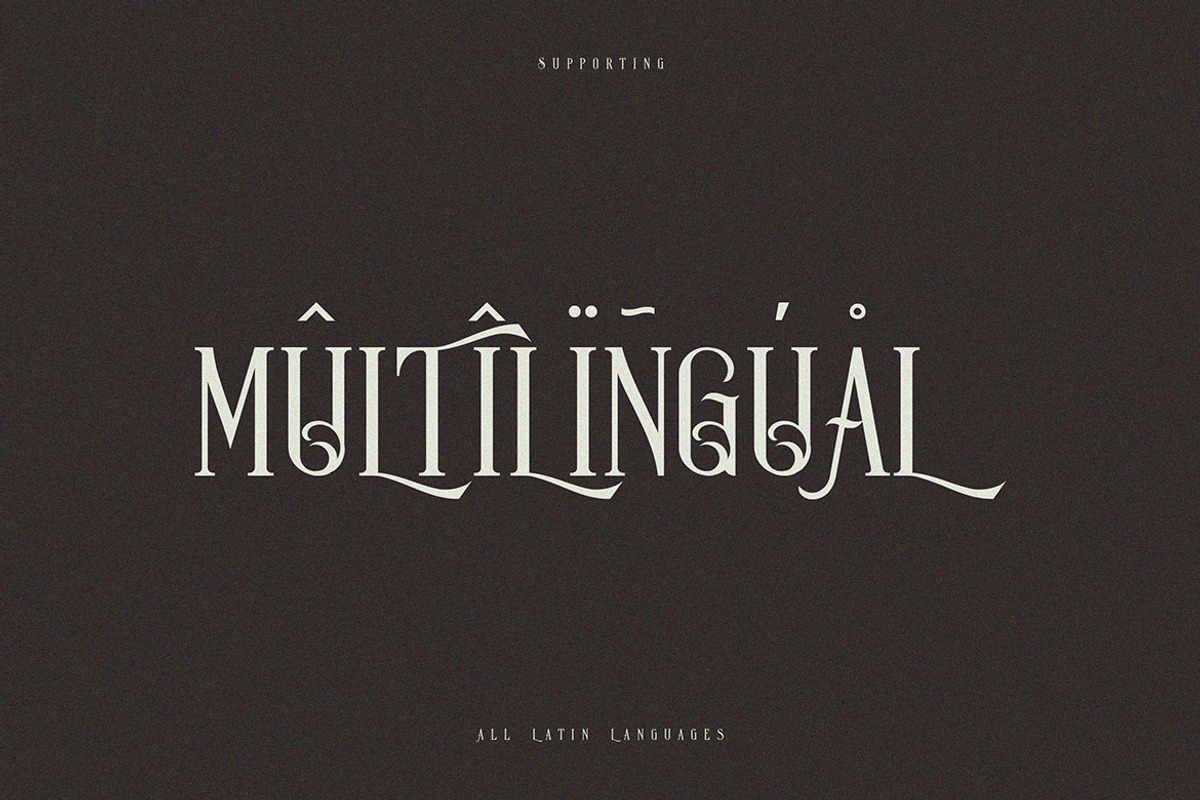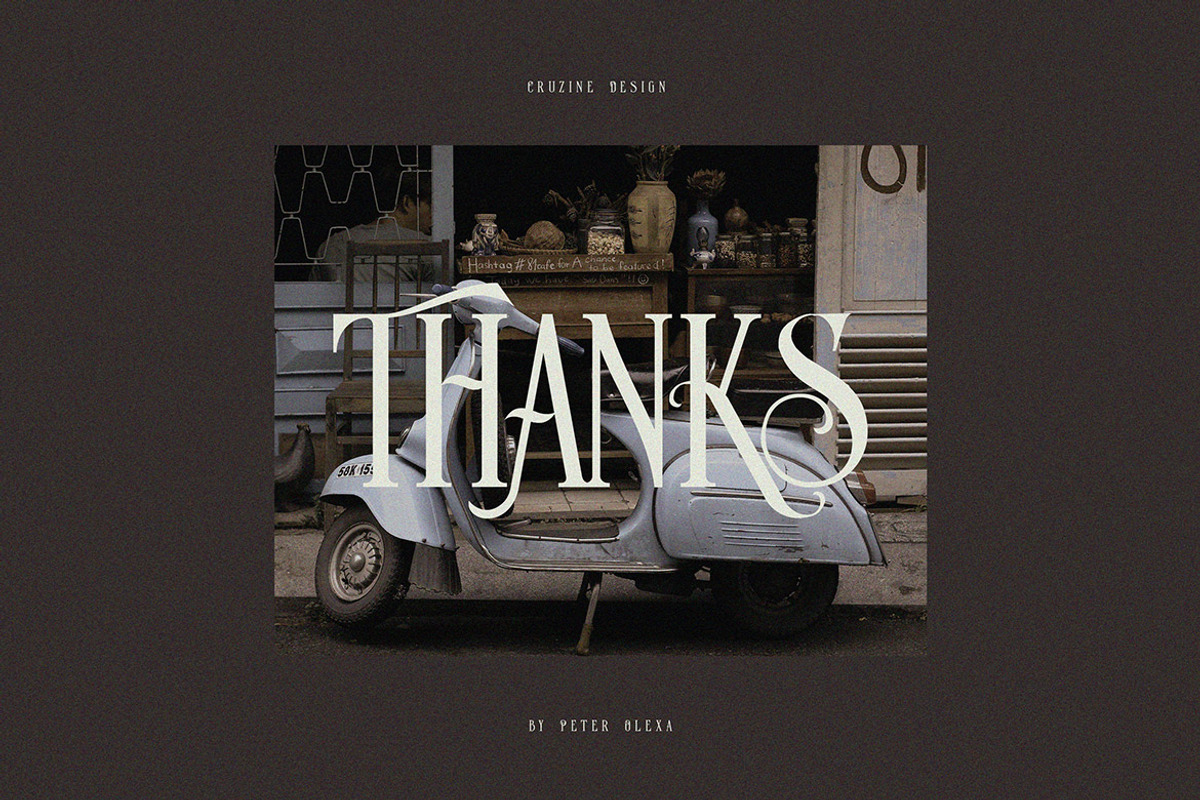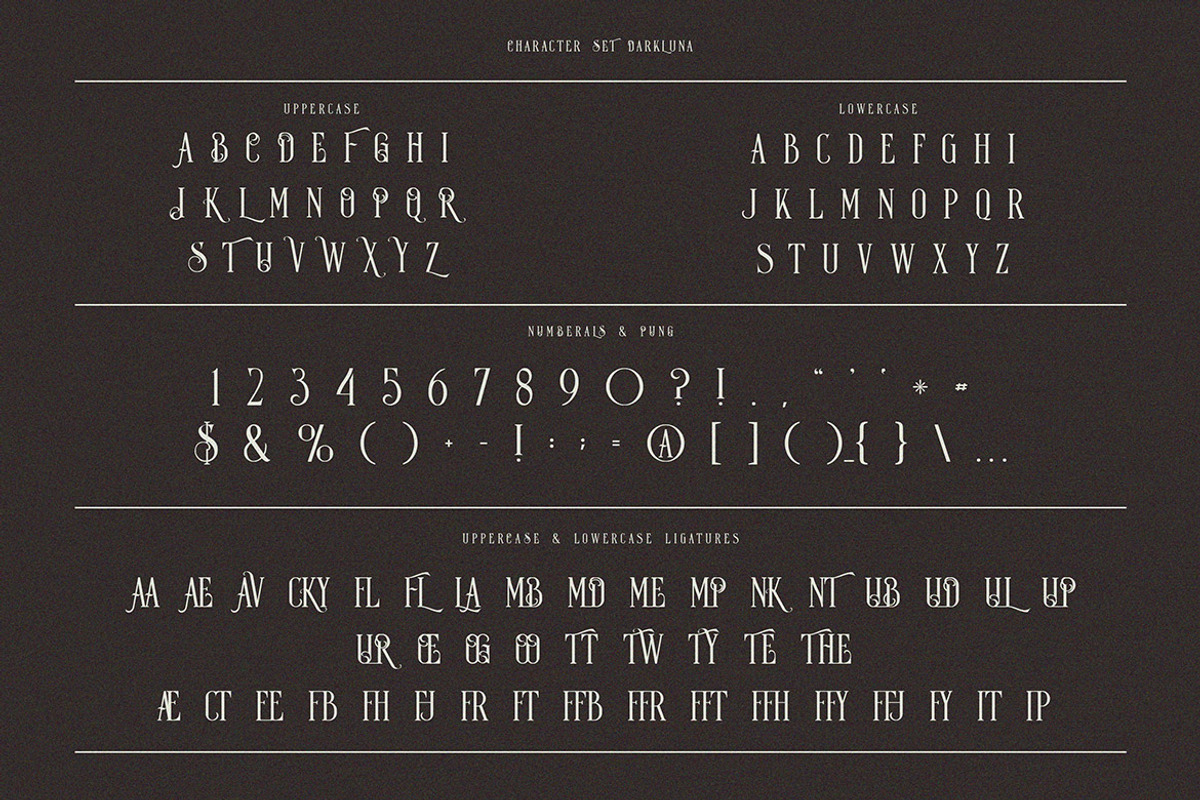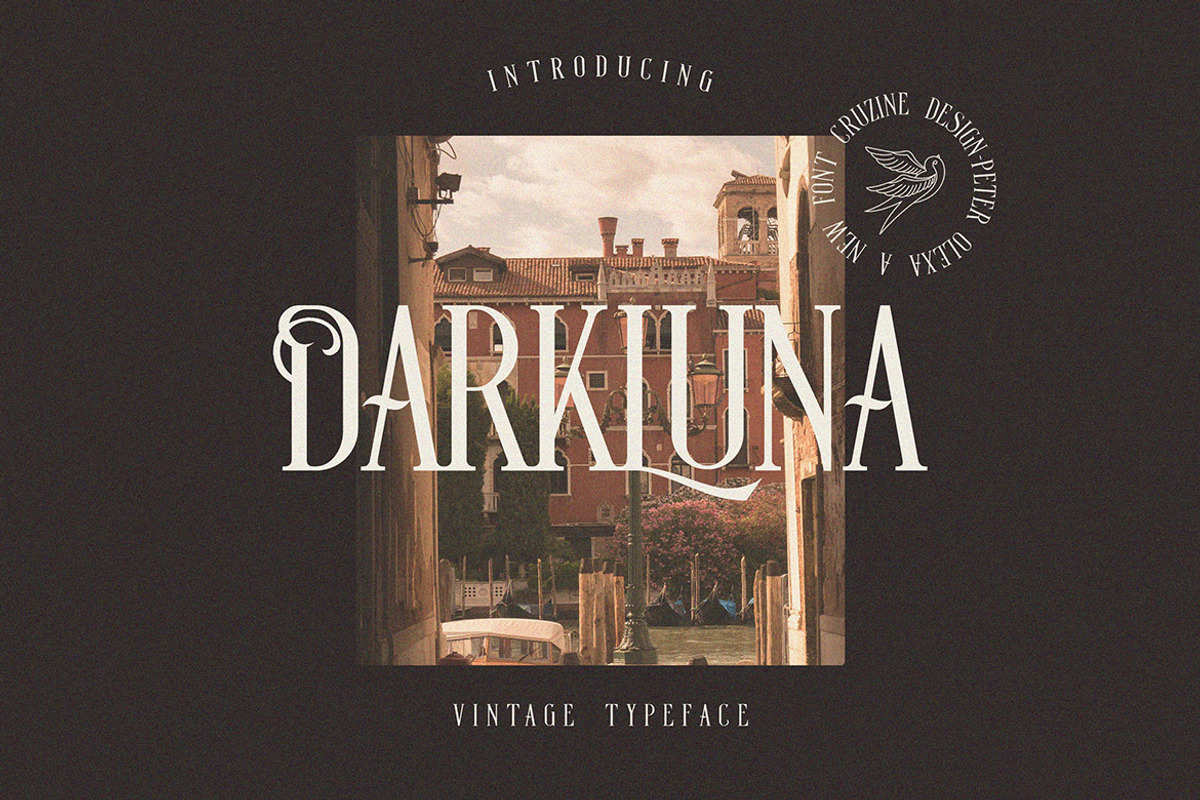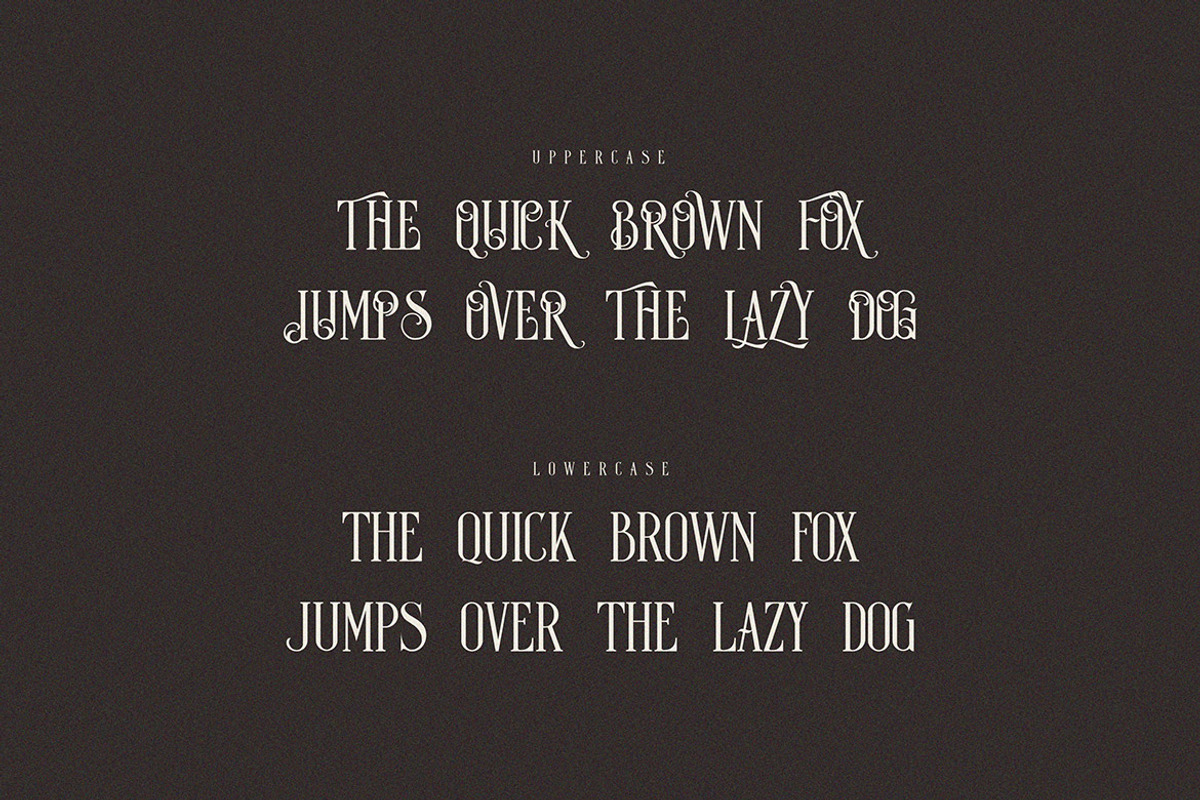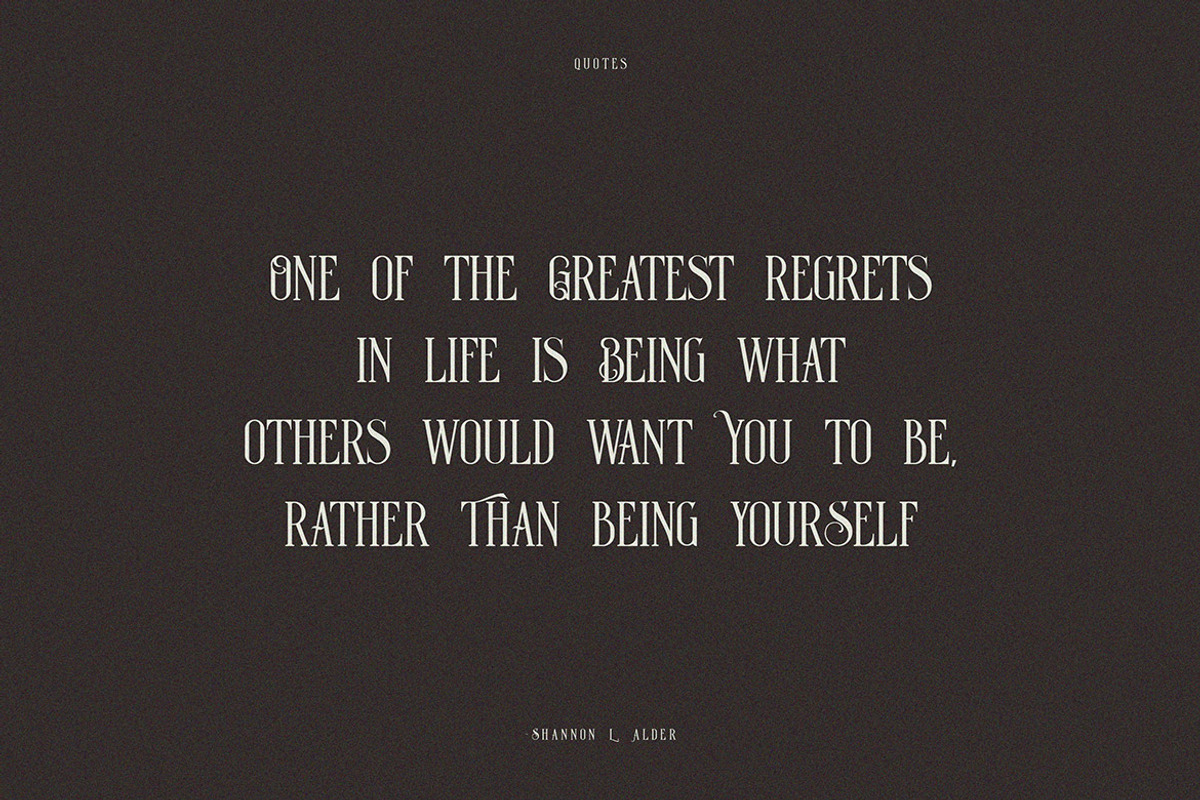
Dark Luna Vintage Condensed Serif
Vintage, decorative, retro, condensed & classy serif font. Great for your new logo or branding project.
- Great for retro or vintage style branding projects